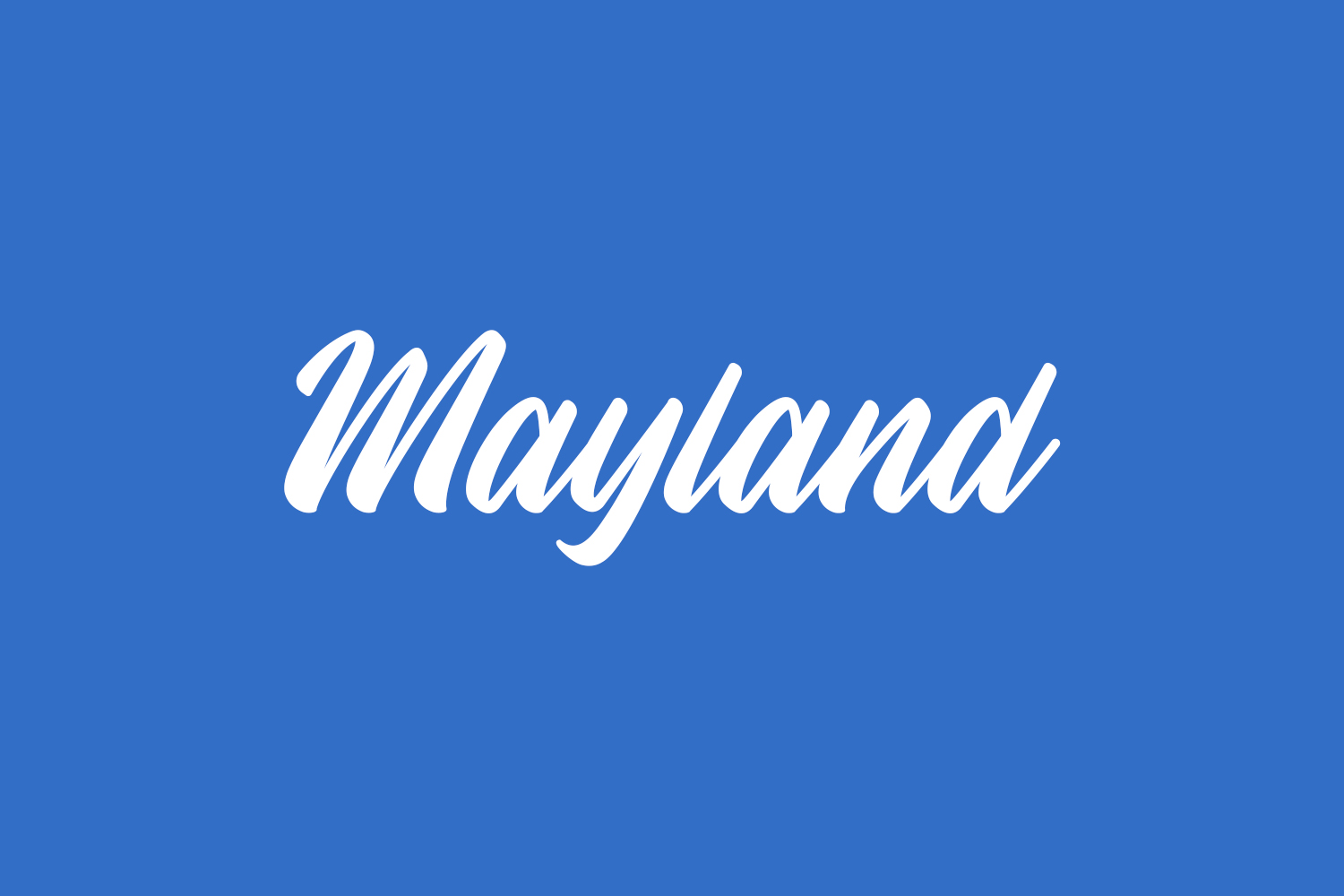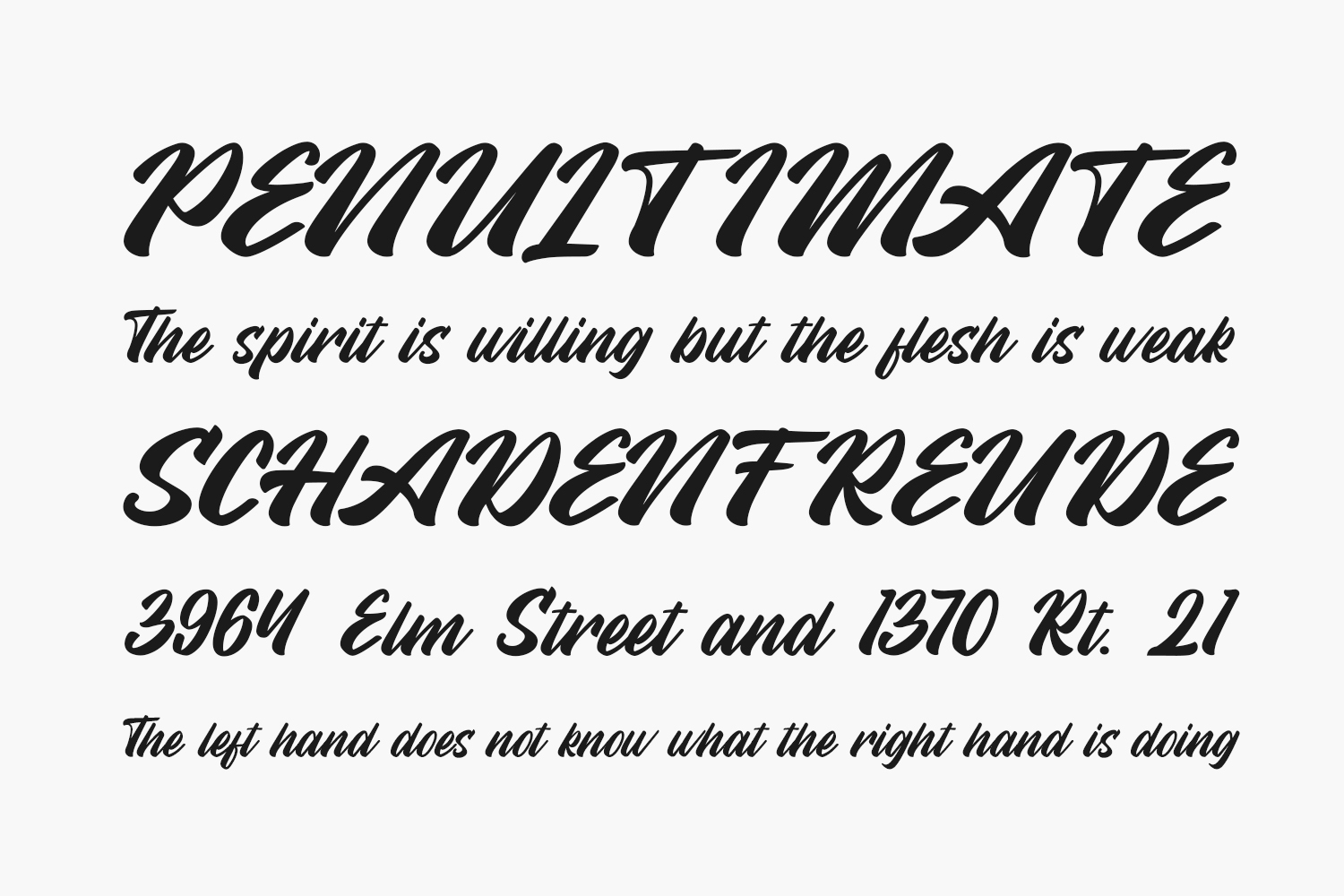
Mayland Free Font is a gorgeous and bold handwritten font that exudes confidence and self-assurance. The thick, striking strokes of the letters convey a sense of power and determination, making it the perfect choice for headlines and titles that demand attention. The font has a unique, personal touch that gives it a sense of authenticity and humanity, making it ideal for projects that require a human touch. The Mayland font evokes feelings of strength and elegance, making it perfect for any project that needs to make a bold statement.